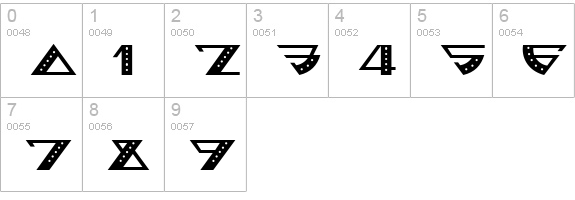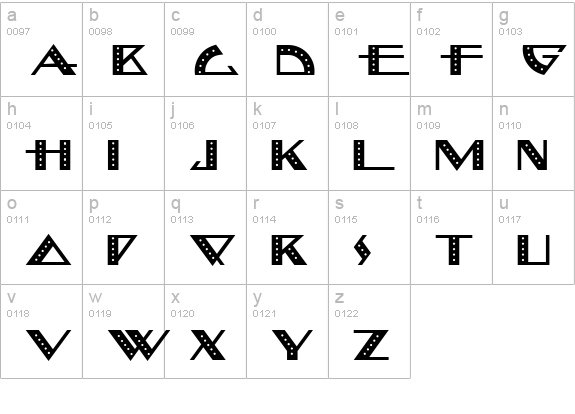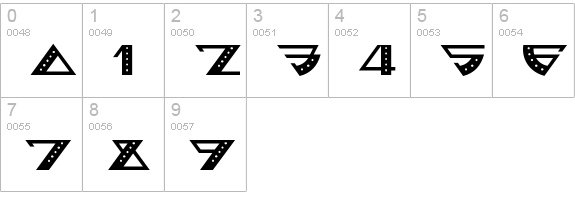
BellhopNF Font Details
BellhopNF is a charming and versatile font that exudes a sense of playful elegance. With its unique combination of sleek lines and subtle curves, this font is perfect for a wide range of design projects. Whether you're creating invitations, posters, or branding materials, BellhopNF will add a touch of sophistication to your work. The best part? BellhopNF is completely free to download at FontsMarket.com. This means you can easily access this stylish font and use it in your designs without any cost. Embrace the beauty and versatility of BellhopNF today and elevate your projects to the next level.